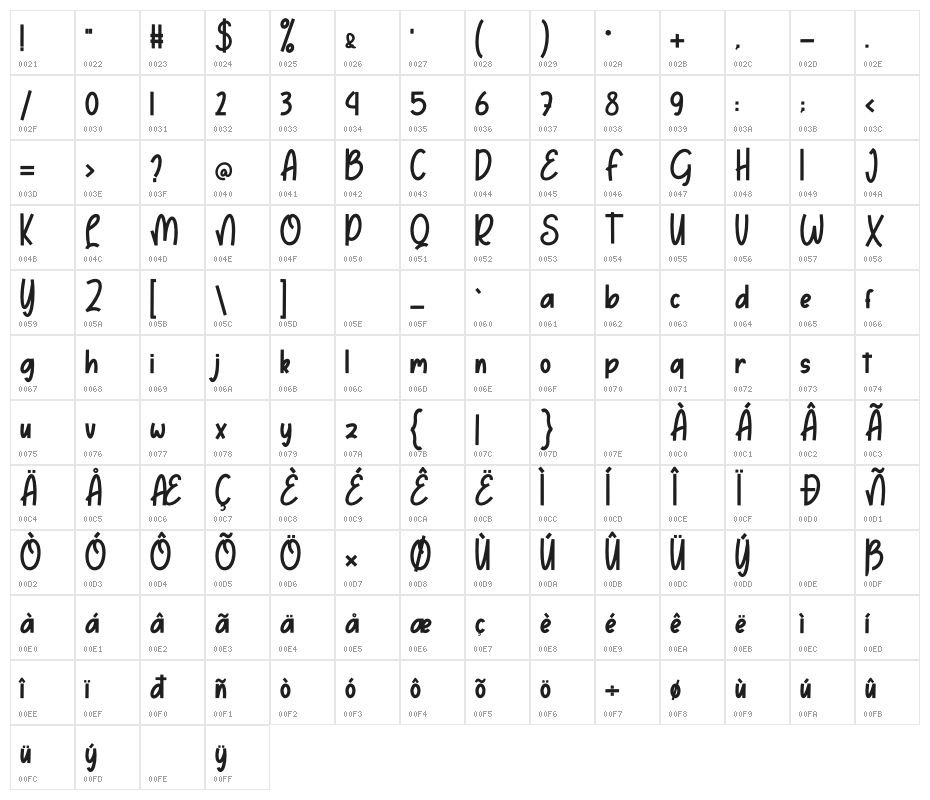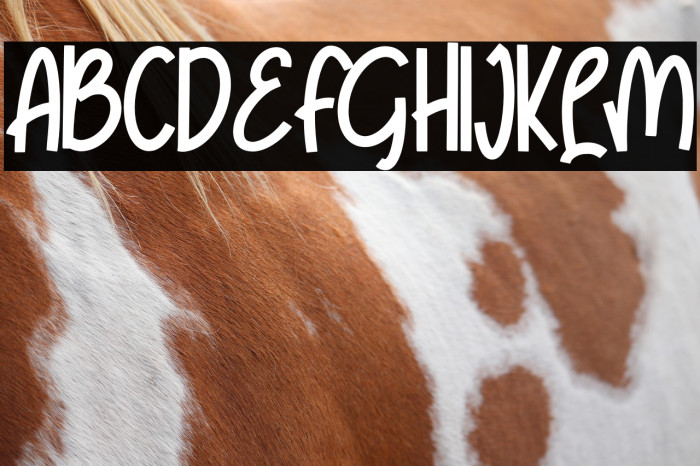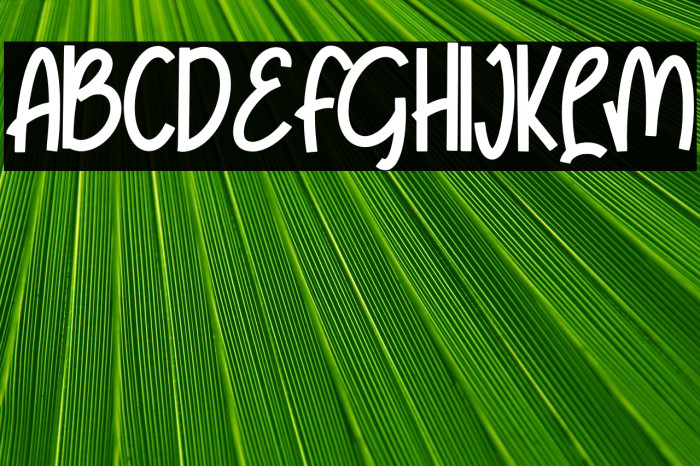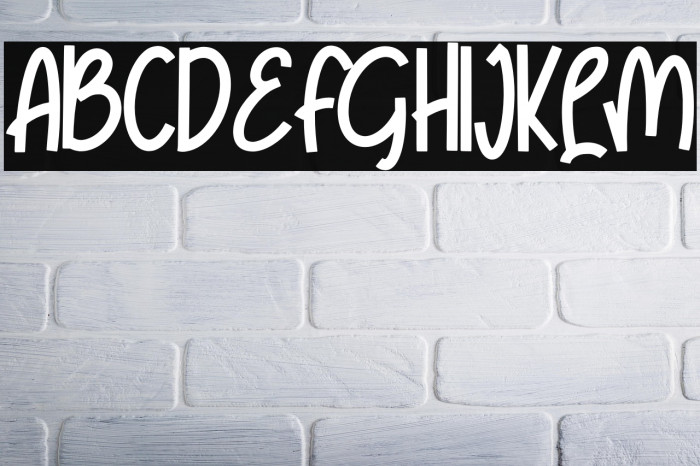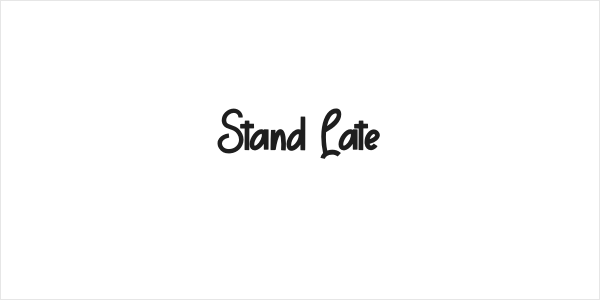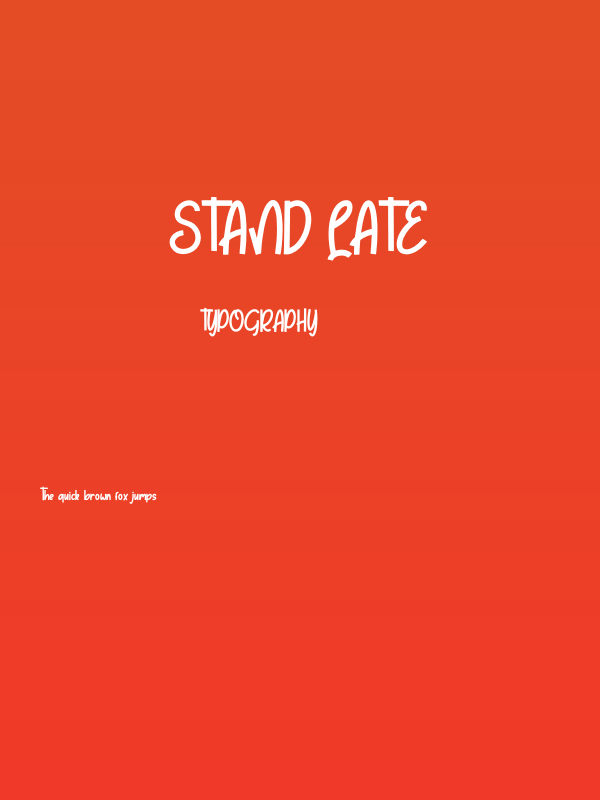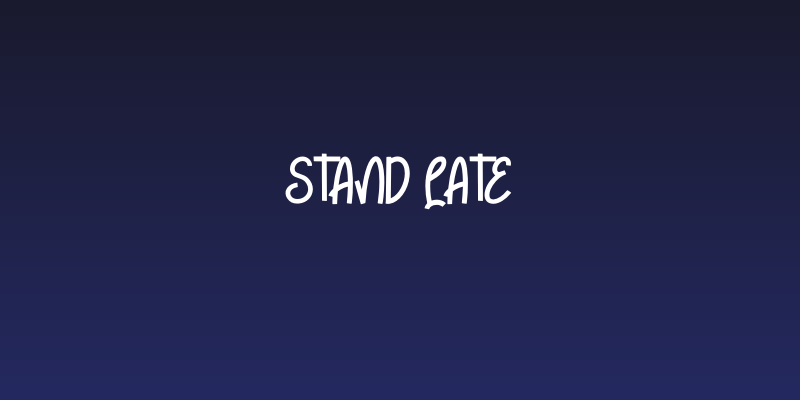
Stand Late Font
Stand Late Description
This font features a playful and bold style with a handwritten appearance. The characters are rounded and slightly irregular, giving it a casual and friendly look. The uppercase letters are tall and slightly narrow, while the lowercase letters maintain a consistent height with a whimsical flair. Numbers and special characters follow the same playful design, making the font versatile for various creative projects. The overall aesthetic is energetic and lively, suitable for designs that aim to capture attention and convey a sense of fun.
| Proposed Projects | Ideal for children's books, party invitations, greeting cards, playful branding, and social media graphics. |